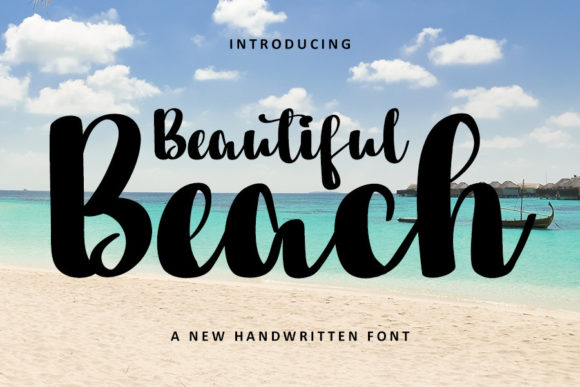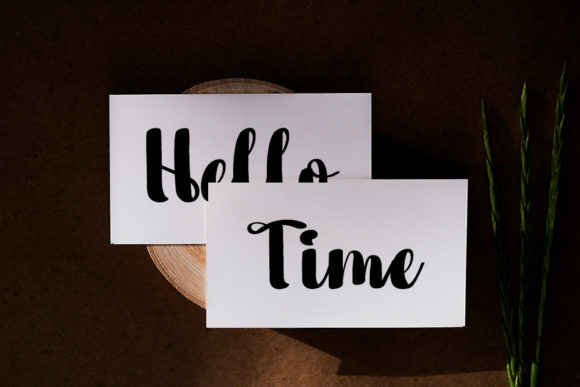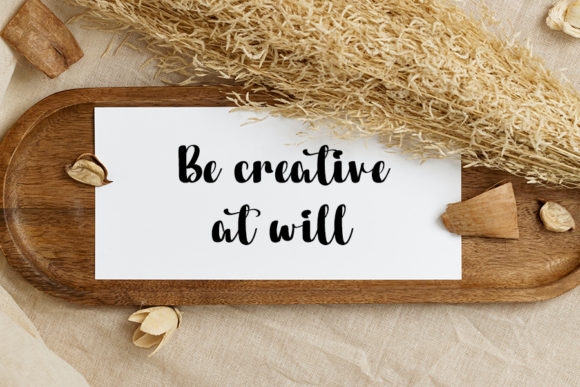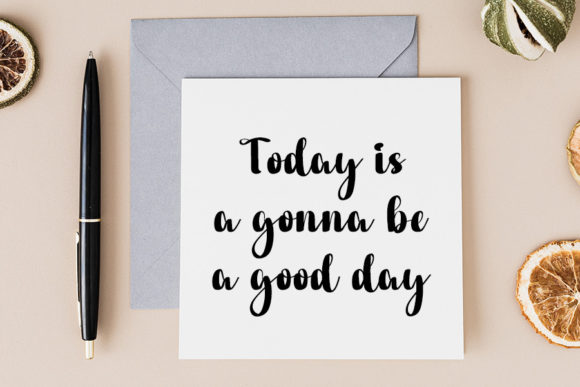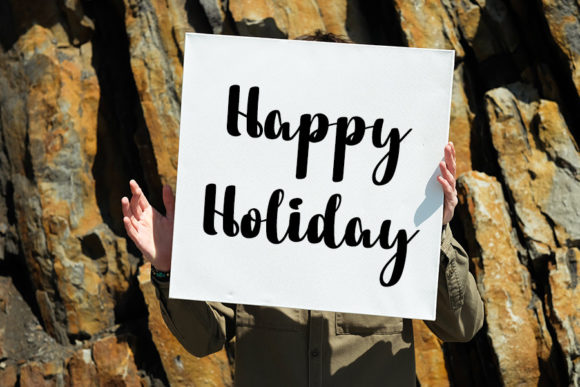
Beautiful Beach Font
About Beautiful Beach Font
Beautiful Beach is a stylish handwritten font crafted with a contemporary atmosphere and impeccable form, drawing inspiration from timeless classic calligraphy. With a balanced and varied design, this font was intentionally created to elevate the beauty of your projects, adding a touch of elegance and sophistication.
The contemporary atmosphere of Beautiful Beach makes it well-suited for a variety of applications, offering a stylish and modern aesthetic. Whether employed in wedding invitations, branding, signage, or any creative project, this font contributes to a visually pleasing and sophisticated presentation.
Impeccable form is a hallmark of Beautiful Beach, ensuring that each character is carefully crafted to achieve a harmonious and refined look. The font’s inspiration from timeless classic calligraphy adds a sense of tradition and enduring beauty, making it versatile for both classic and contemporary design contexts.
In wedding invitations, Beautiful Beach brings a stylish and romantic flair, setting the tone for a special celebration. The handwritten charm of the font adds a personal touch, making invitations more memorable and unique.
For branding purposes, Beautiful Beach adds a touch of elegance to your visual identity. Whether used in logos, packaging, or marketing materials, the font’s contemporary yet timeless style enhances the overall brand image.
Signage and other creative projects benefit from Beautiful Beach’s balanced and varied design. The font adapts seamlessly to different themes, creating a visually appealing and harmonious design that captures attention.
In summary, Beautiful Beach is more than just a font; it’s a stylish handwritten design tool that enhances the beauty of your projects. Whether applied to wedding invitations, branding, signage, or various creative endeavors, Beautiful Beach brings a touch of timeless classic calligraphy, elevating your designs with sophistication and grace.